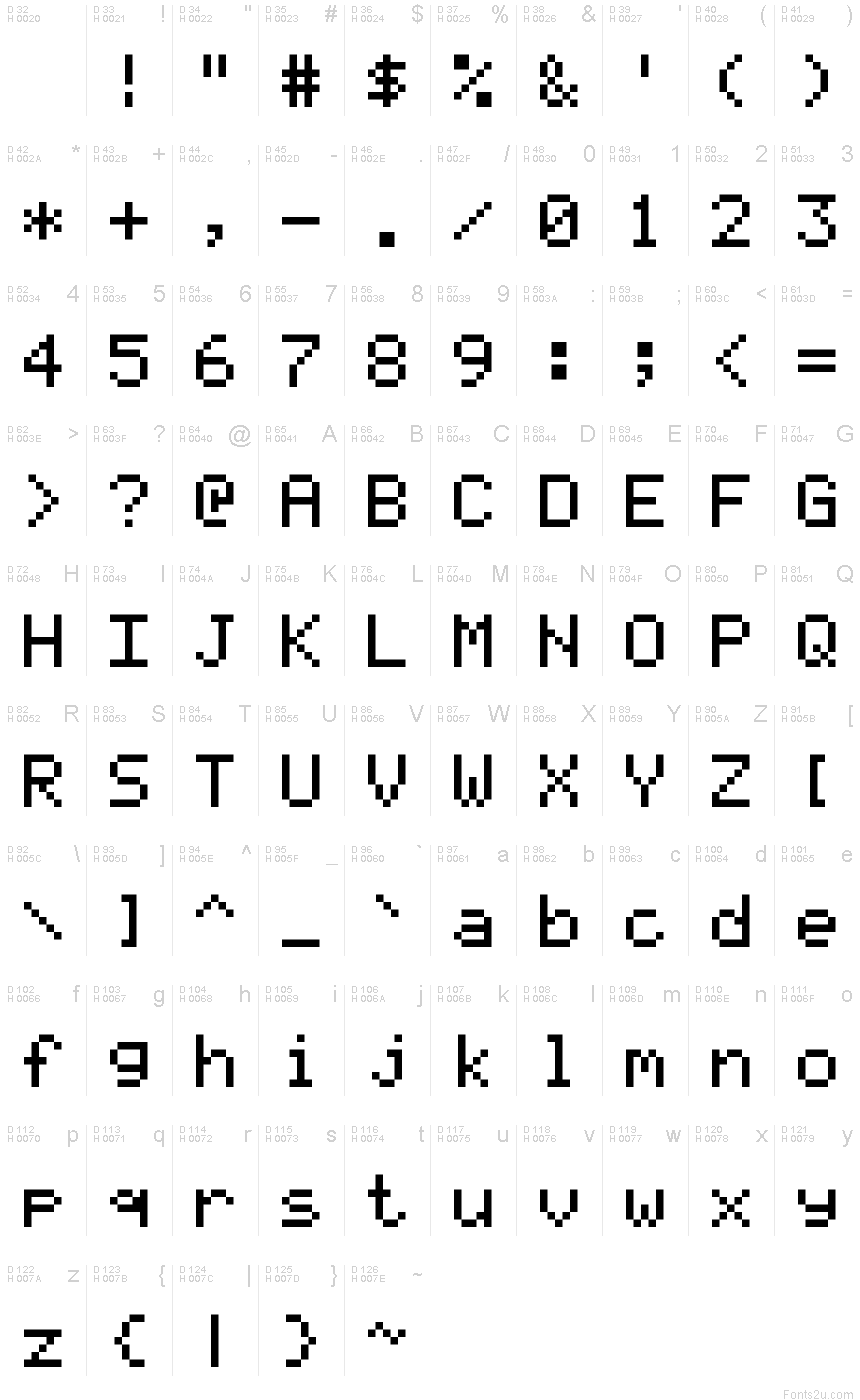
TI-83 Plus, created by Nitro of FontShop International GmbH, is a free pixel font built from stark, square modules. Its letters follow a rigid grid, with stepped curves and rectangular gaps that recall early calculator screens. The construction is crisp and unapologetically mechanical.
Game graphics are an especially convincing setting for this lettering, since its chunky pixels can suggest scoreboards, menus, and simple interface elements. It also suits technology posters, electronic music artwork, and retro merchandise, but its clearest role is recreating the direct look of low-resolution digital displays.
TI-83 Plus
Nitro